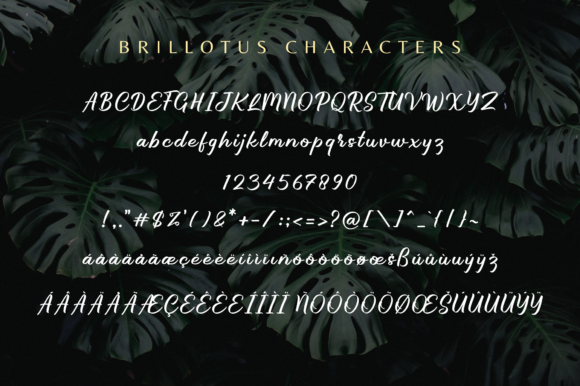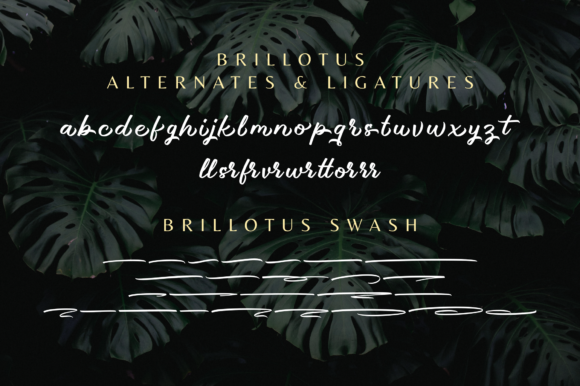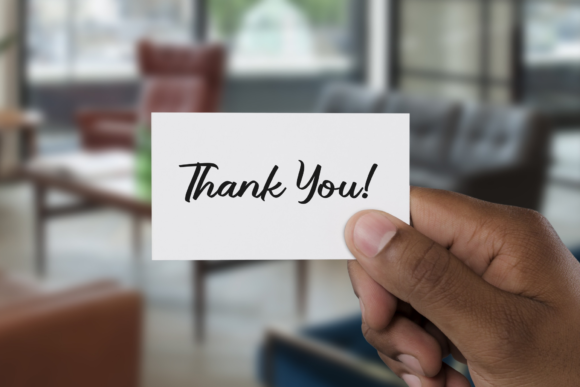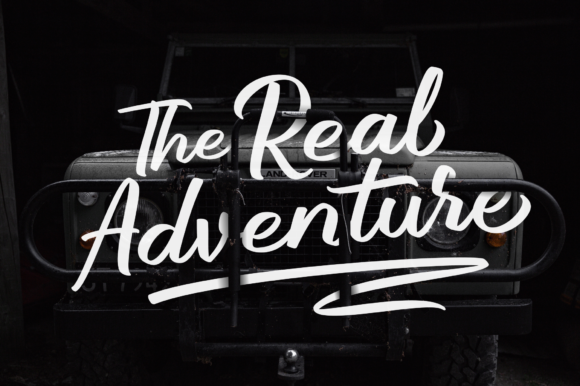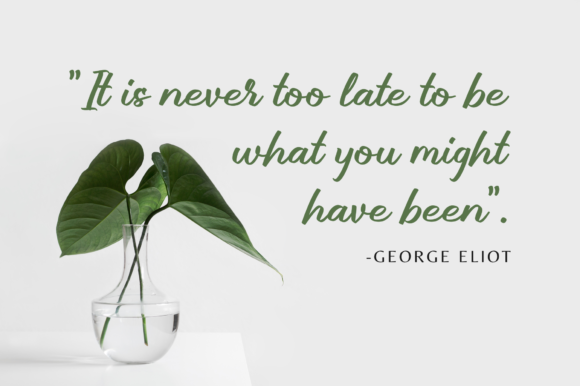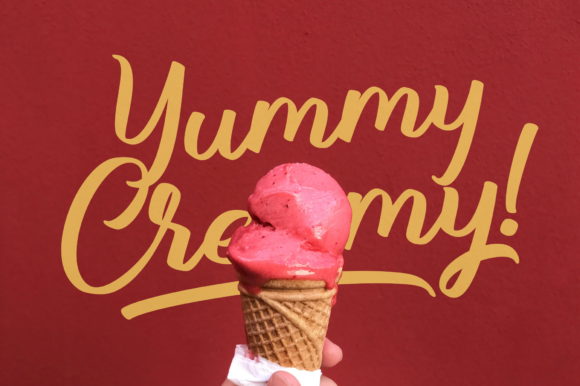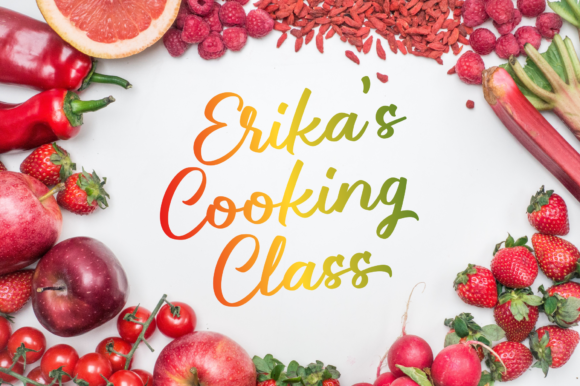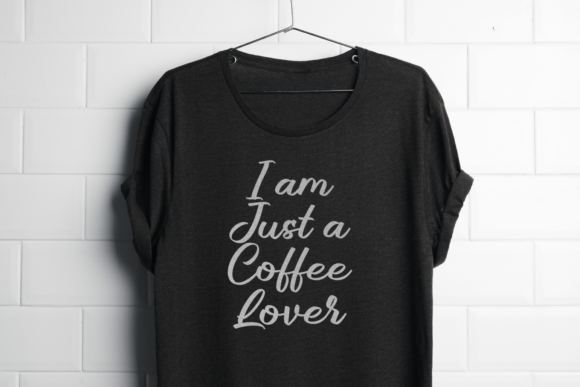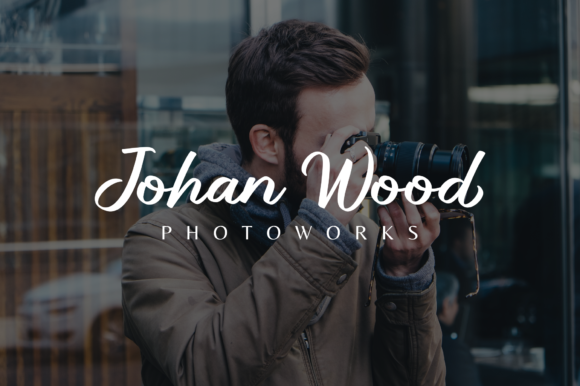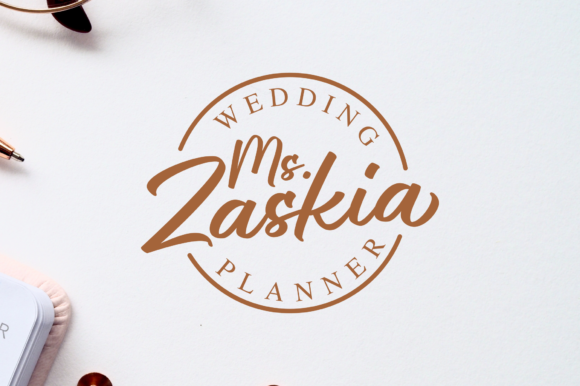
HomeScript FontsBrillotus Font Script Fonts Brillotus Font FacebookXPinterestWhatsApp Brillotus Font Poster 2 Brillotus Font Poster 3 Brillotus Font Poster 4 Brillotus Font Poster 5 Brillotus Font Poster 6 Brillotus Font Poster 7 Brillotus Font Poster 8 Brillotus Font Poster 9 Brillotus Font Poster 10 Brillotus Font Poster 11 Brillotus Font Poster 12 About Brillotus Font Brillotus is a stunning handwritten font with a personal feel. It will add an authentic twist to any design idea! DOWNLOAD NOW People also explored Boho Font Ollia Font Inkgasm Font Mister Quenos Font Avocados Font Qucurella Font Happyly Ever After Font April Mop Font Elizabeth Font 476 0 TagsBrillotus Font Previous articleReactin FontNext articleJodie Garland Script Font LEAVE A REPLY Cancel reply Comment: Please enter your comment! Name:* Please enter your name here Email:* You have entered an incorrect email address! Please enter your email address here Website: Save my name, email, and website in this browser for the next time I comment. Personal Use Free Mullia Personal Use Free Read more about this font Lazy Sunday Personal Use Free Read more about this font Millea Personal Use Free Read more about this font Concre Personal Use Free Read more about this font BLOG Where to Buy American Fonts Online in 2024 Where to Buy American Fonts Online: The Ultimate Guide for 2024 Looking for the perfect American font to elevate your design projects? You're in the... Using Fonts in Digital Marketing: Tips to Strengthen Your Brand Identity Modern Sans-Serif Fonts That Brands Love in 2025 Top 7 Google Fonts Alternatives for Faster and Privacy-Friendly Web Design (2025)